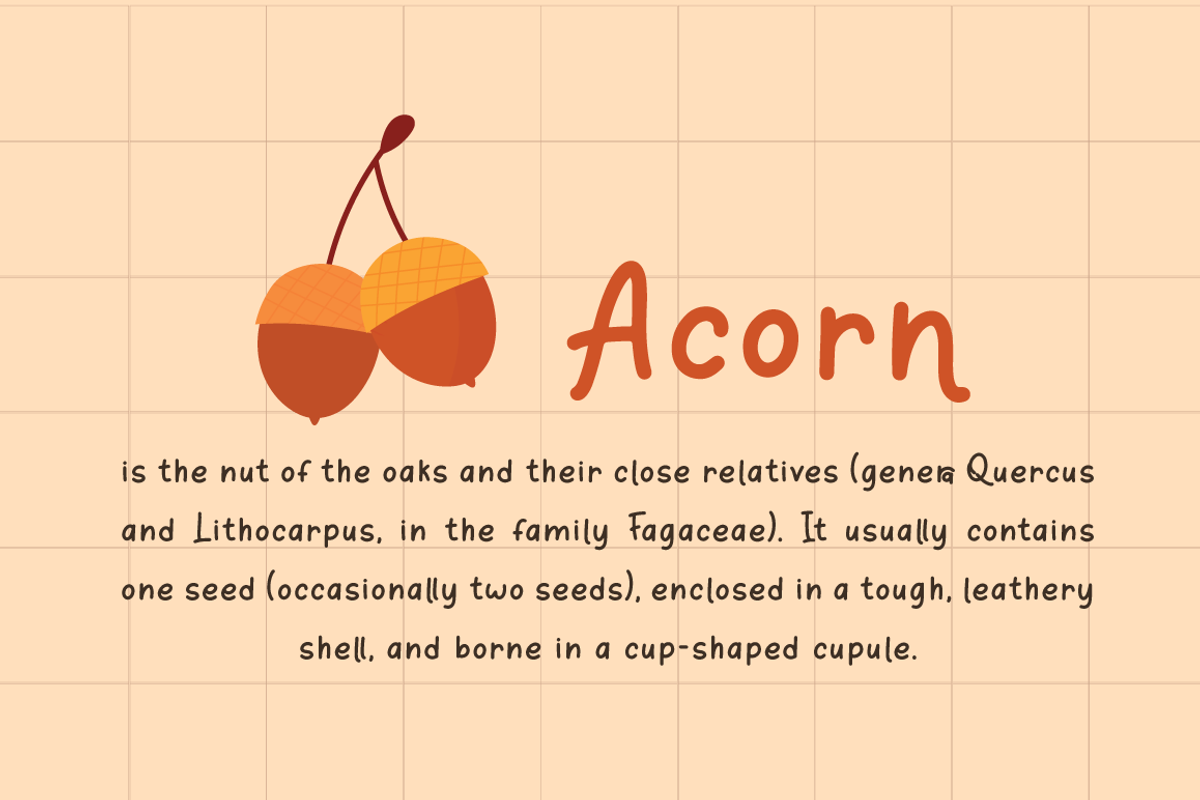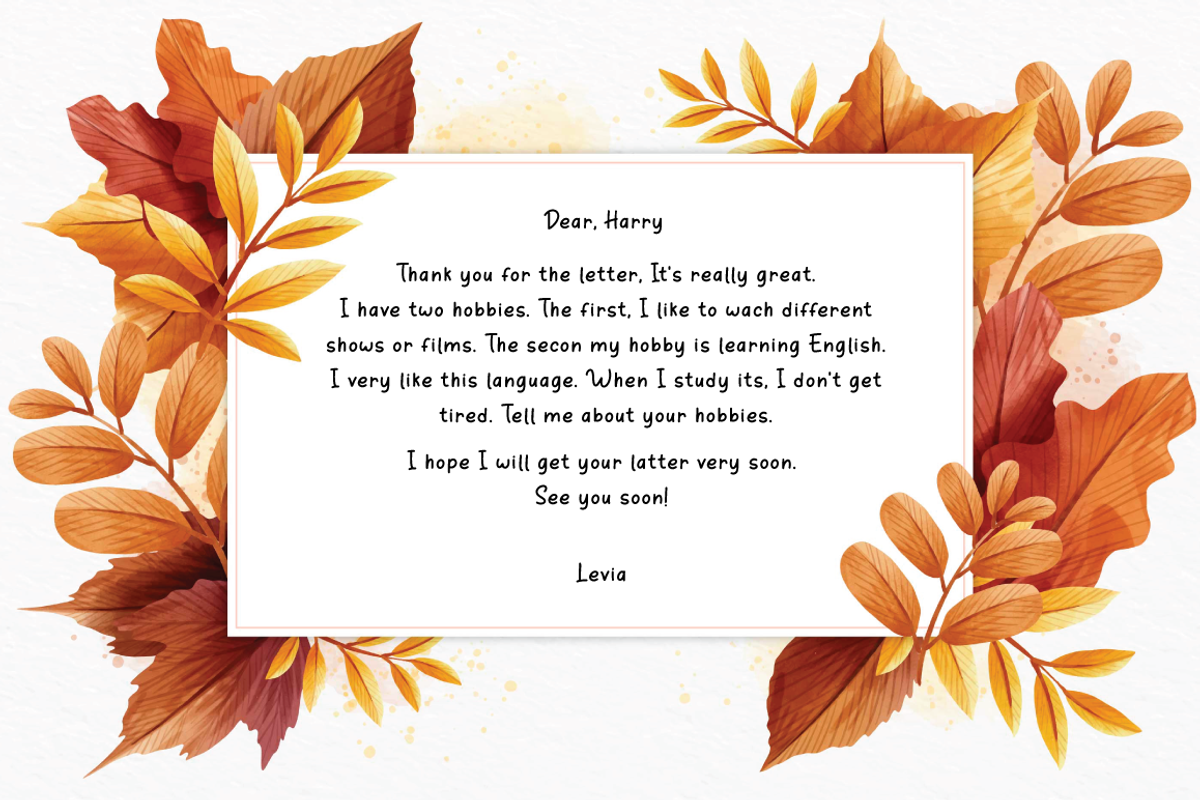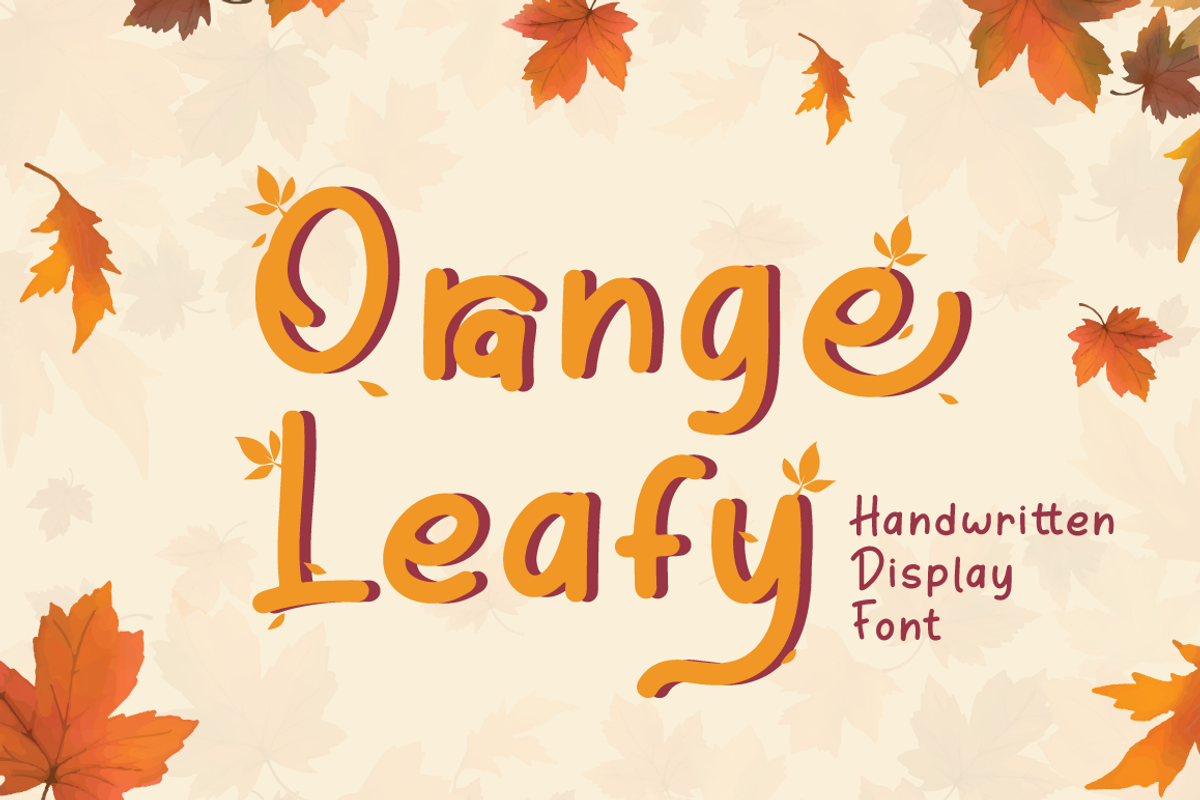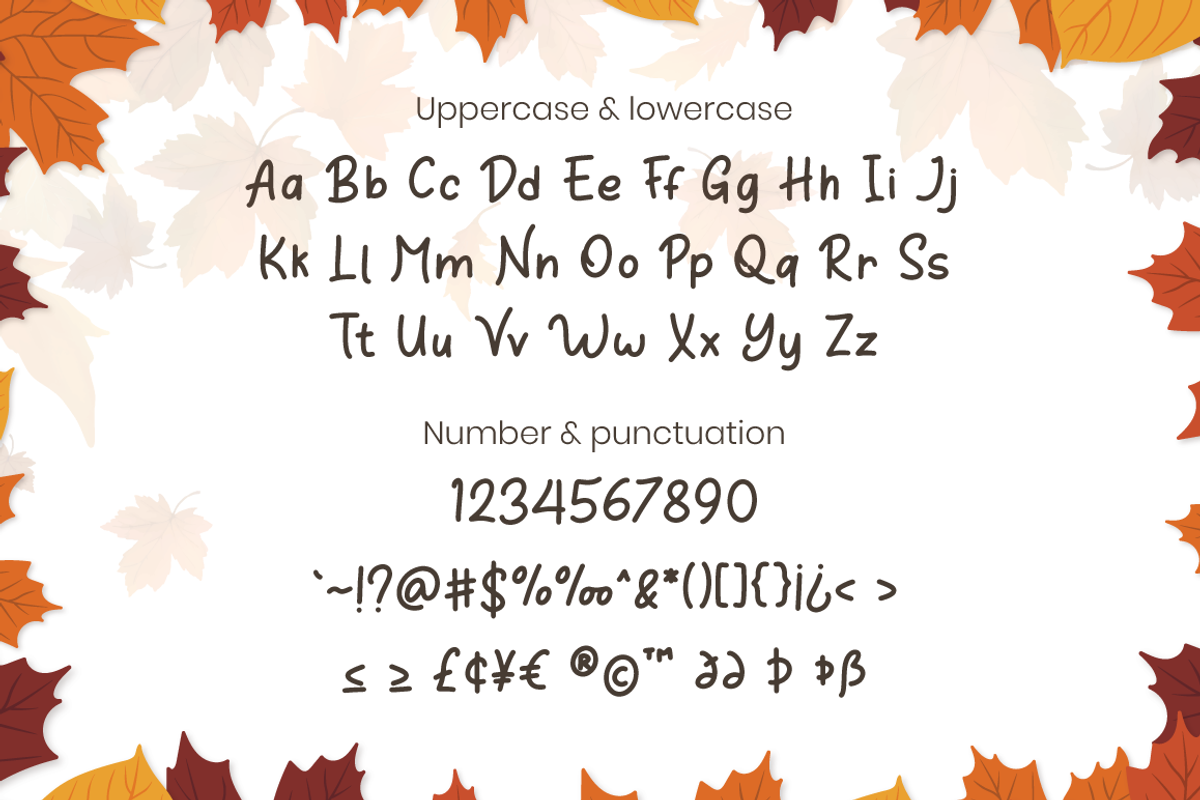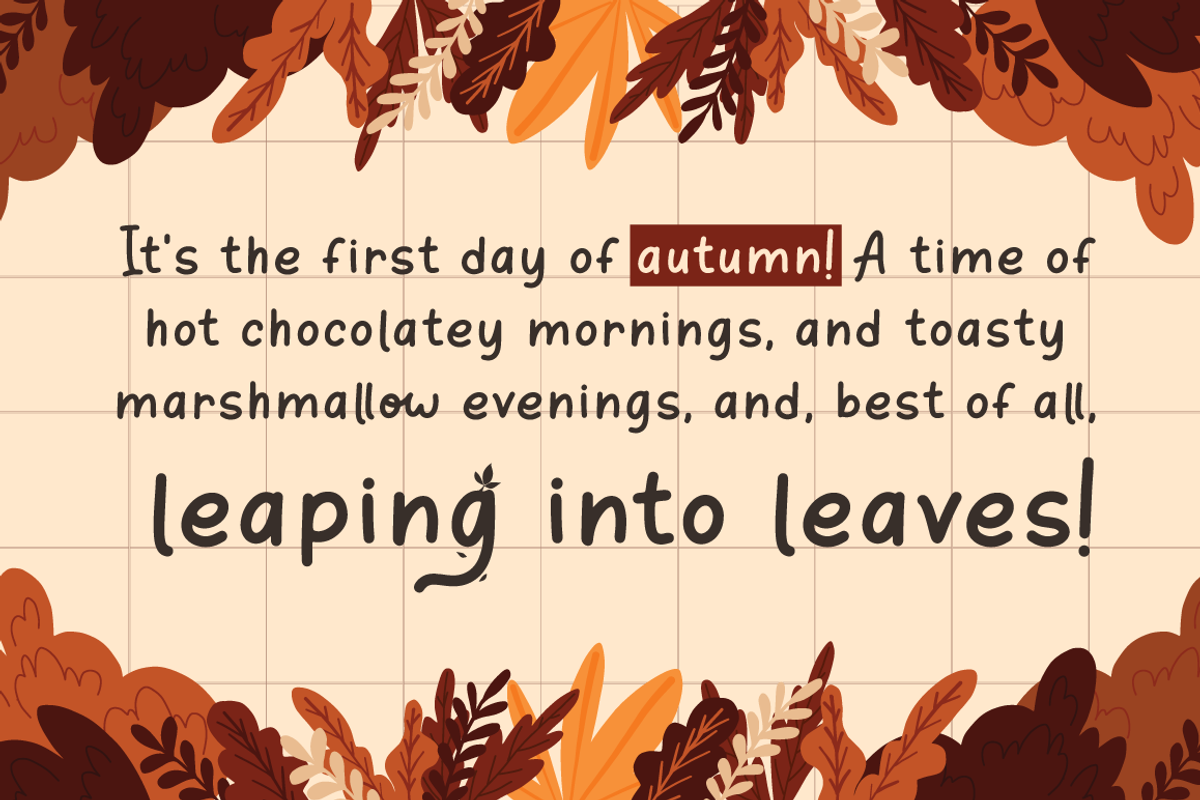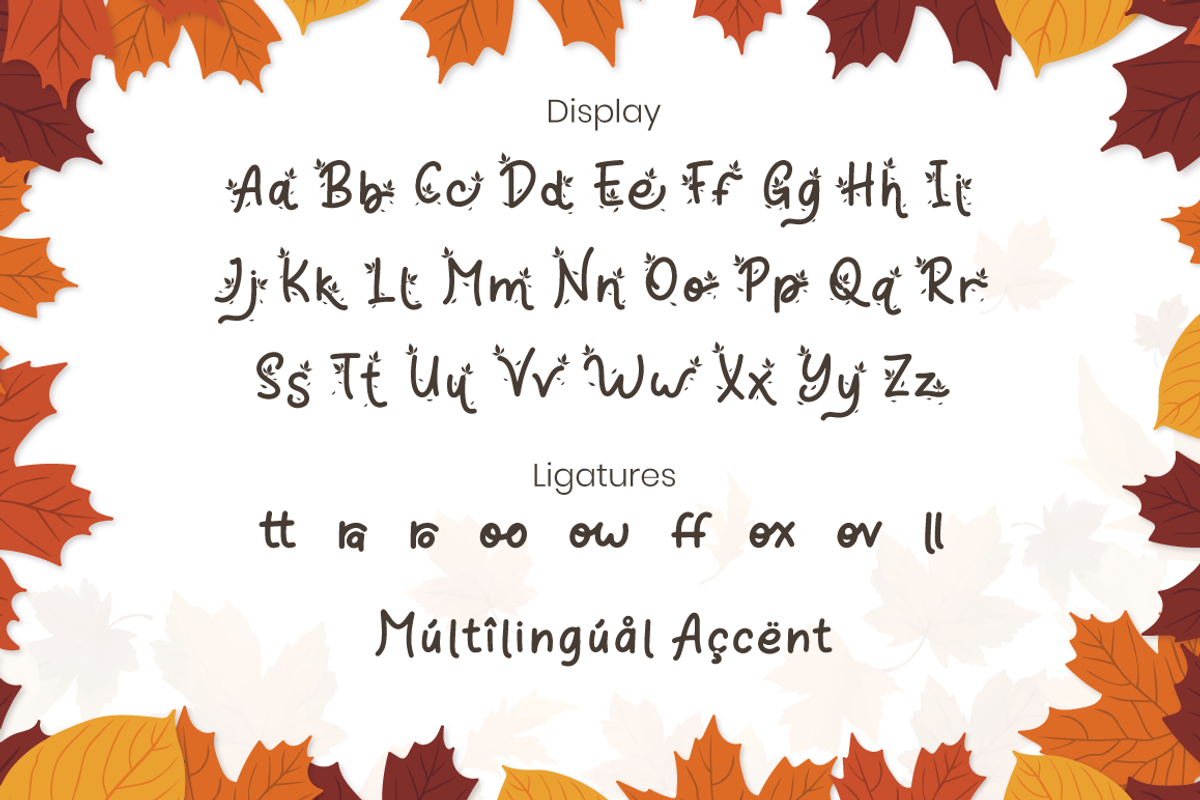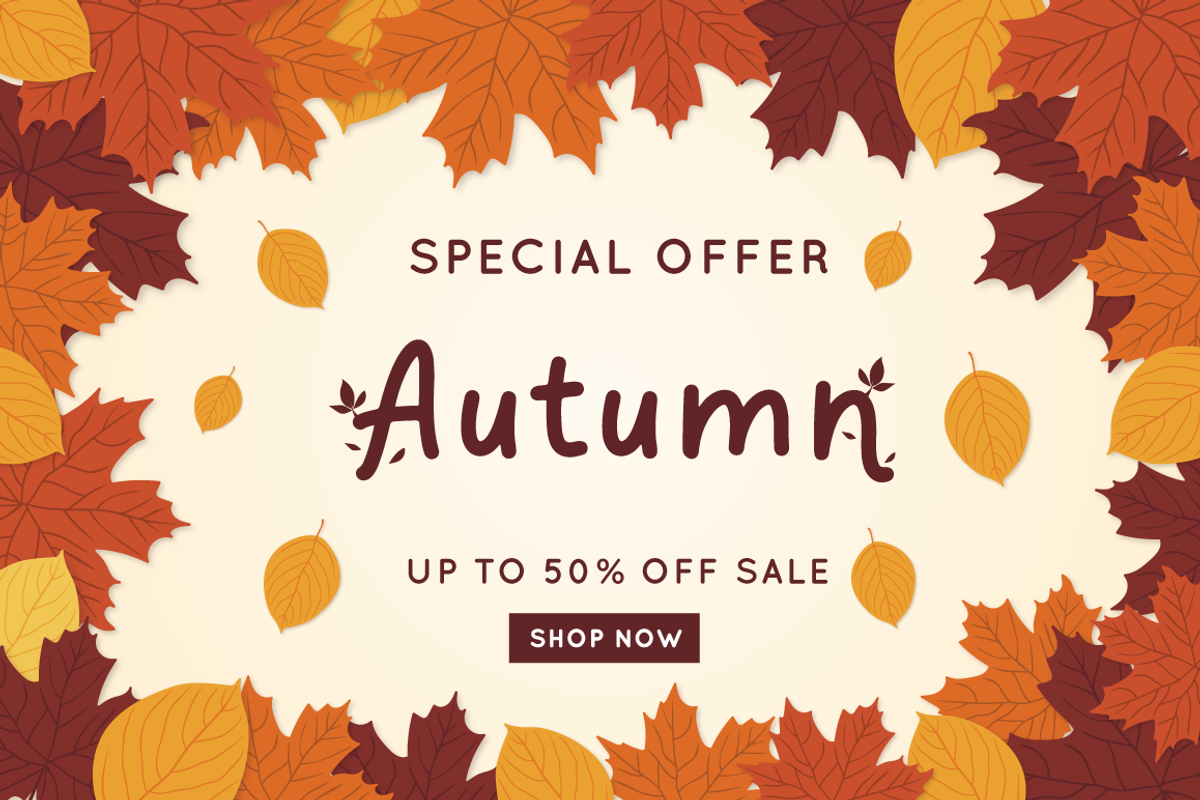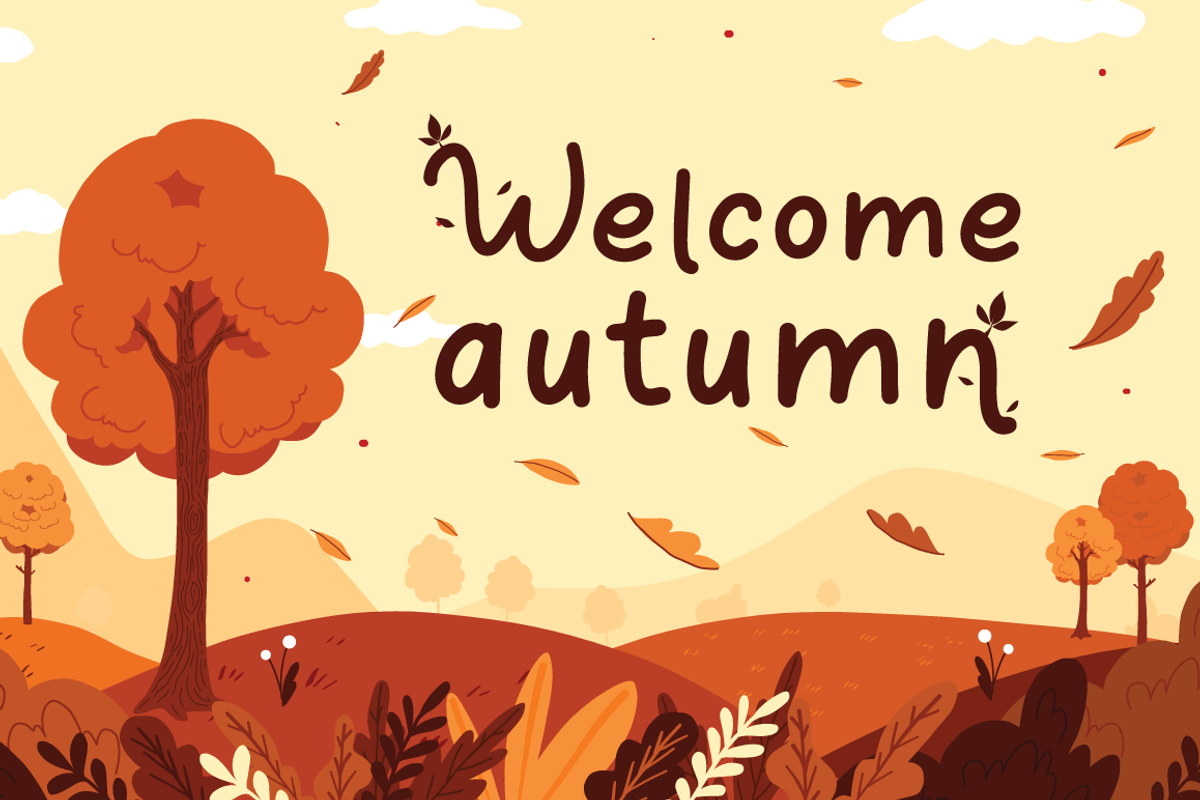
Orange Leafy - Autumn Display Font
Orange Leafy is an Autumn font duo with maple leaf display, Fall in love with it and bring your projects to the highest levels!
Orange Leafy is perfect for Autumn branding, logo, invitation, stationery, social media post, product packaging, merchandise, blog design, game titles, cute style design, Book/Cover Title and more.